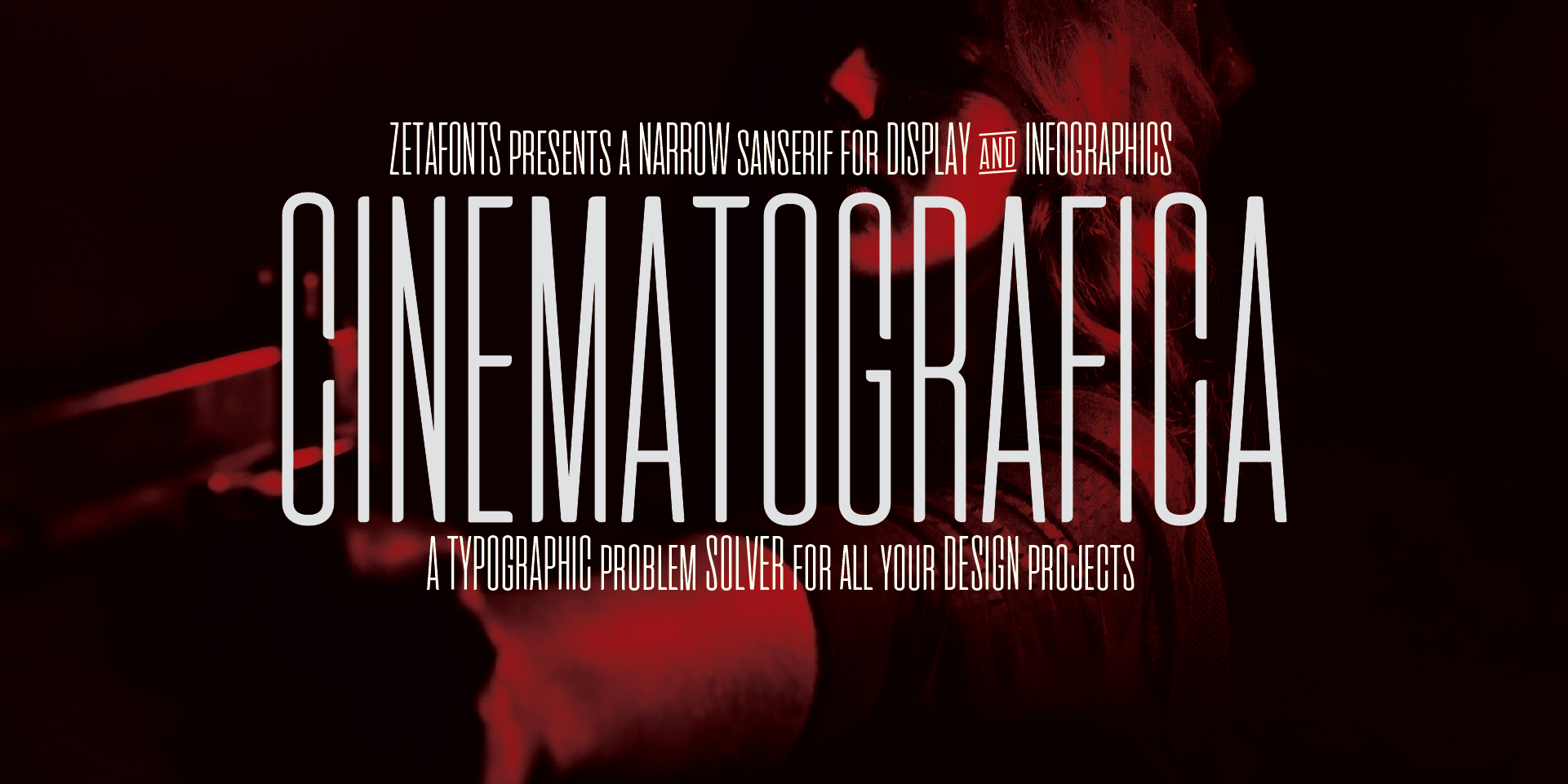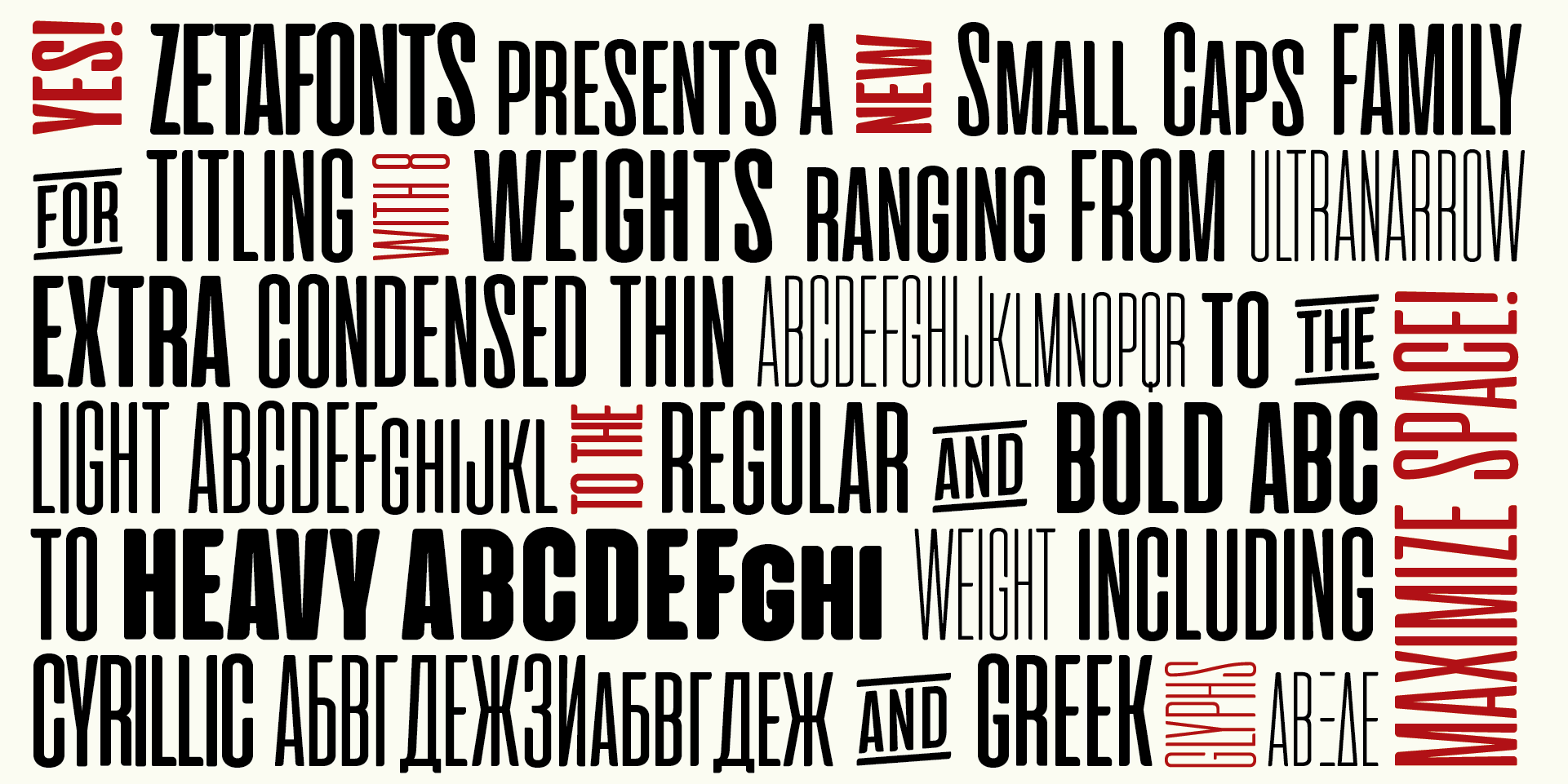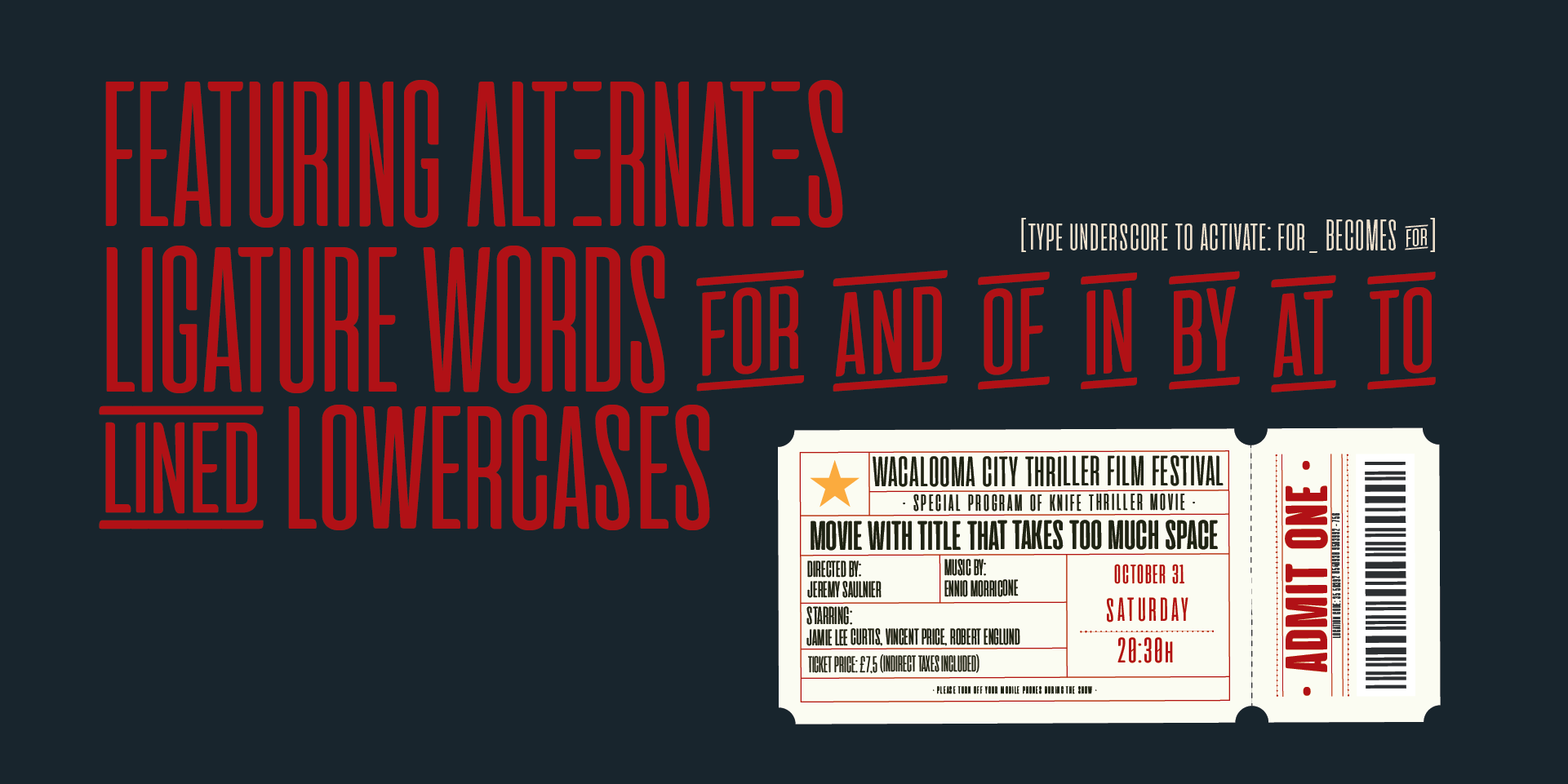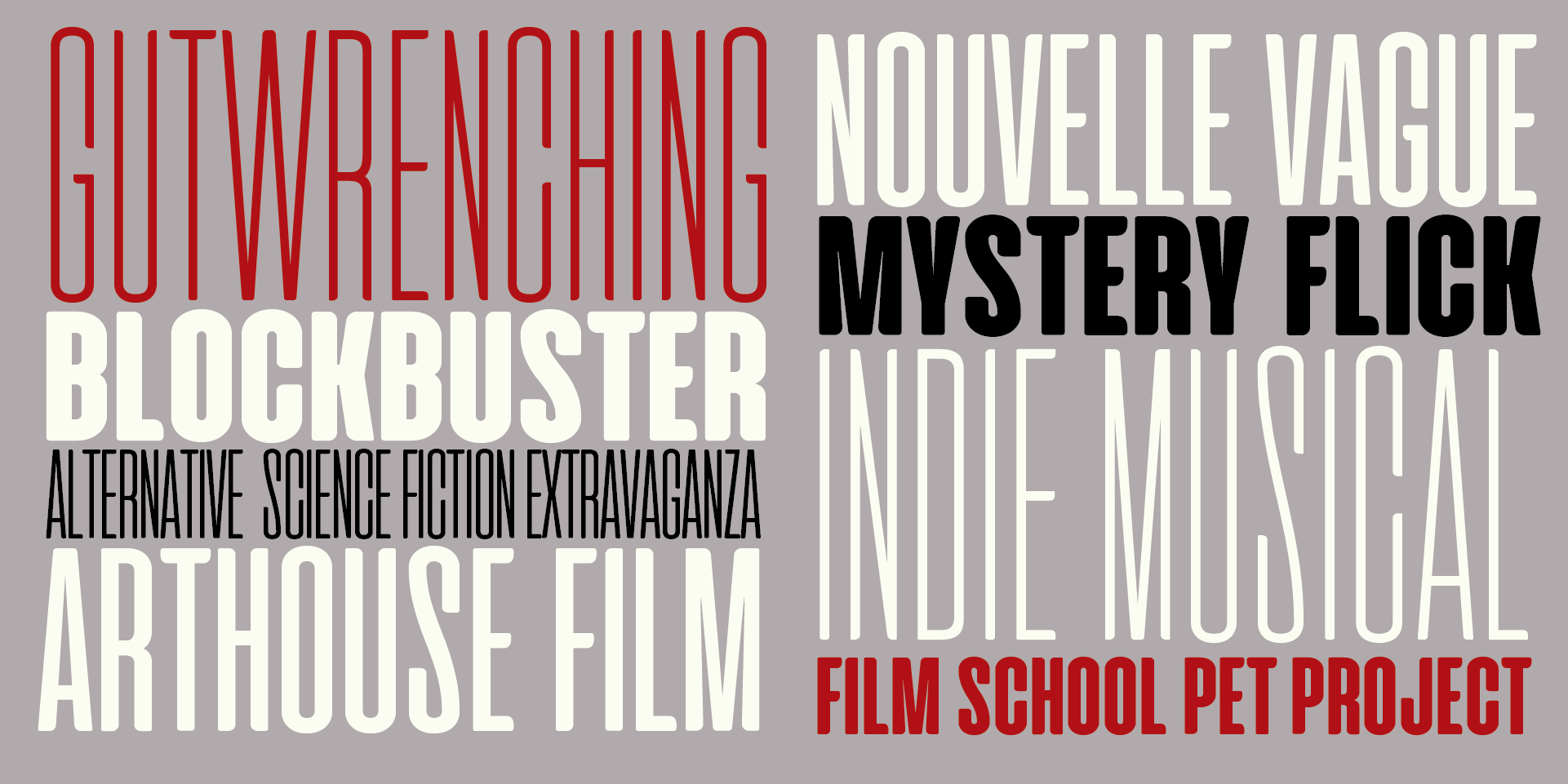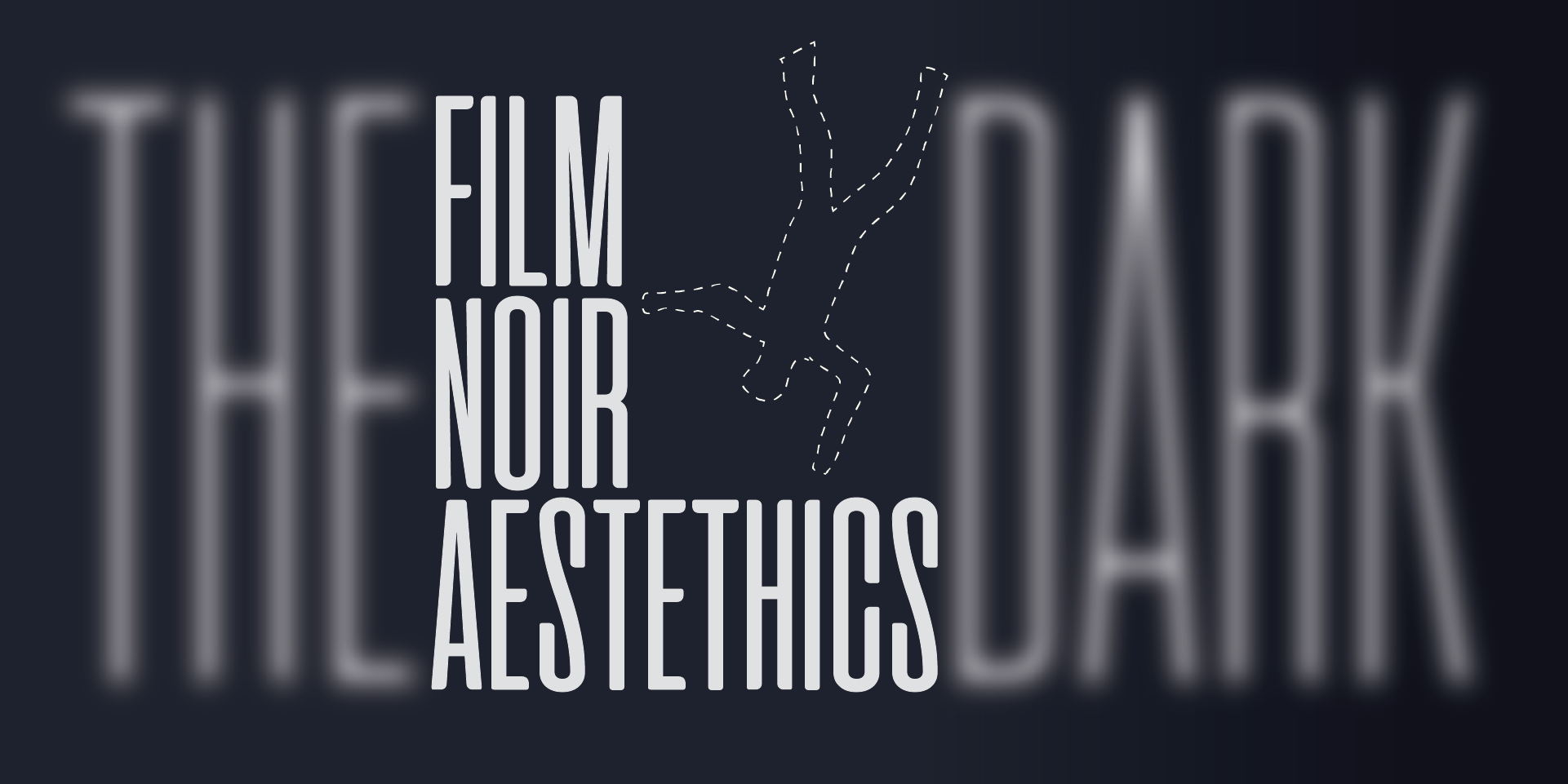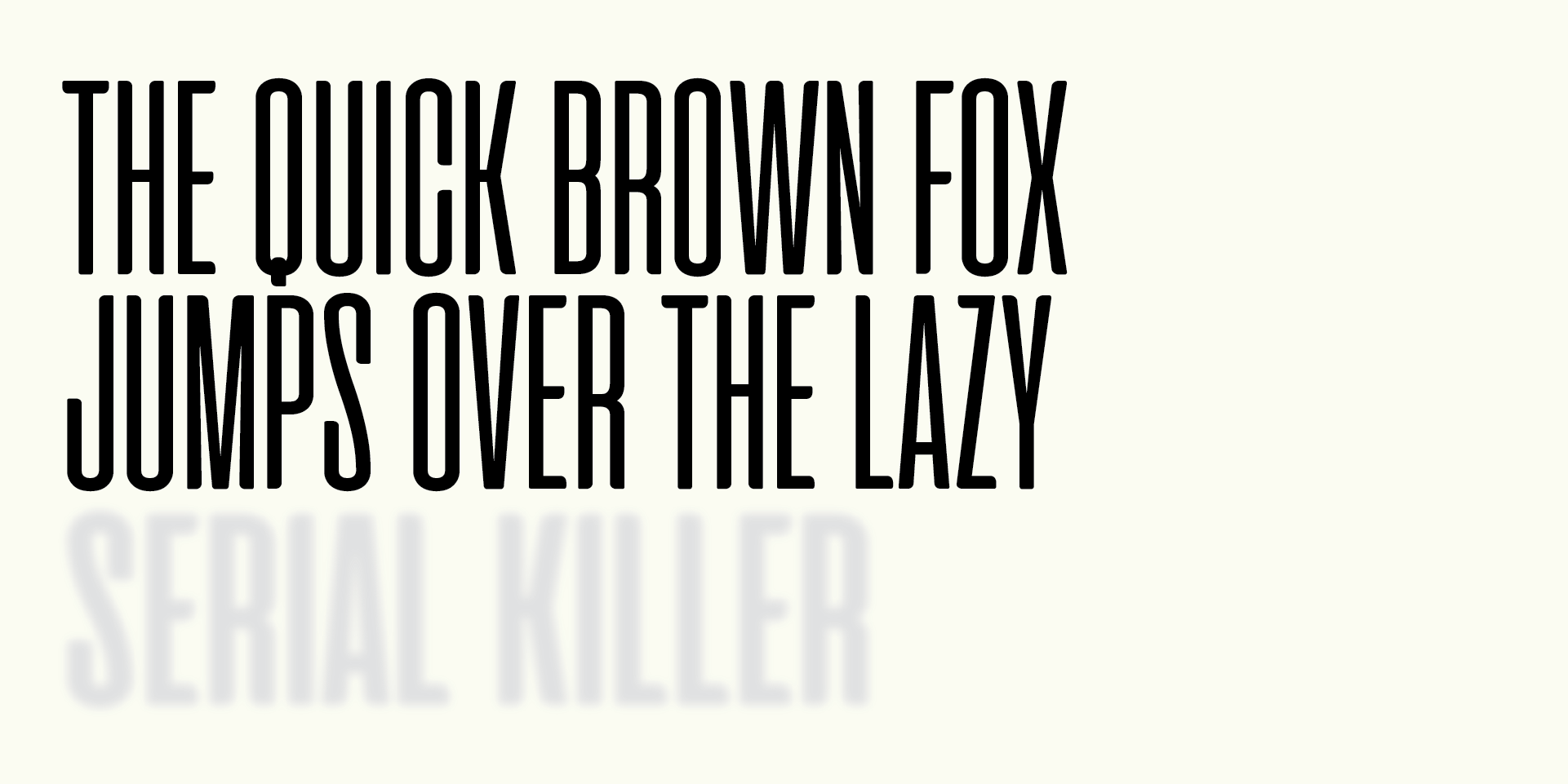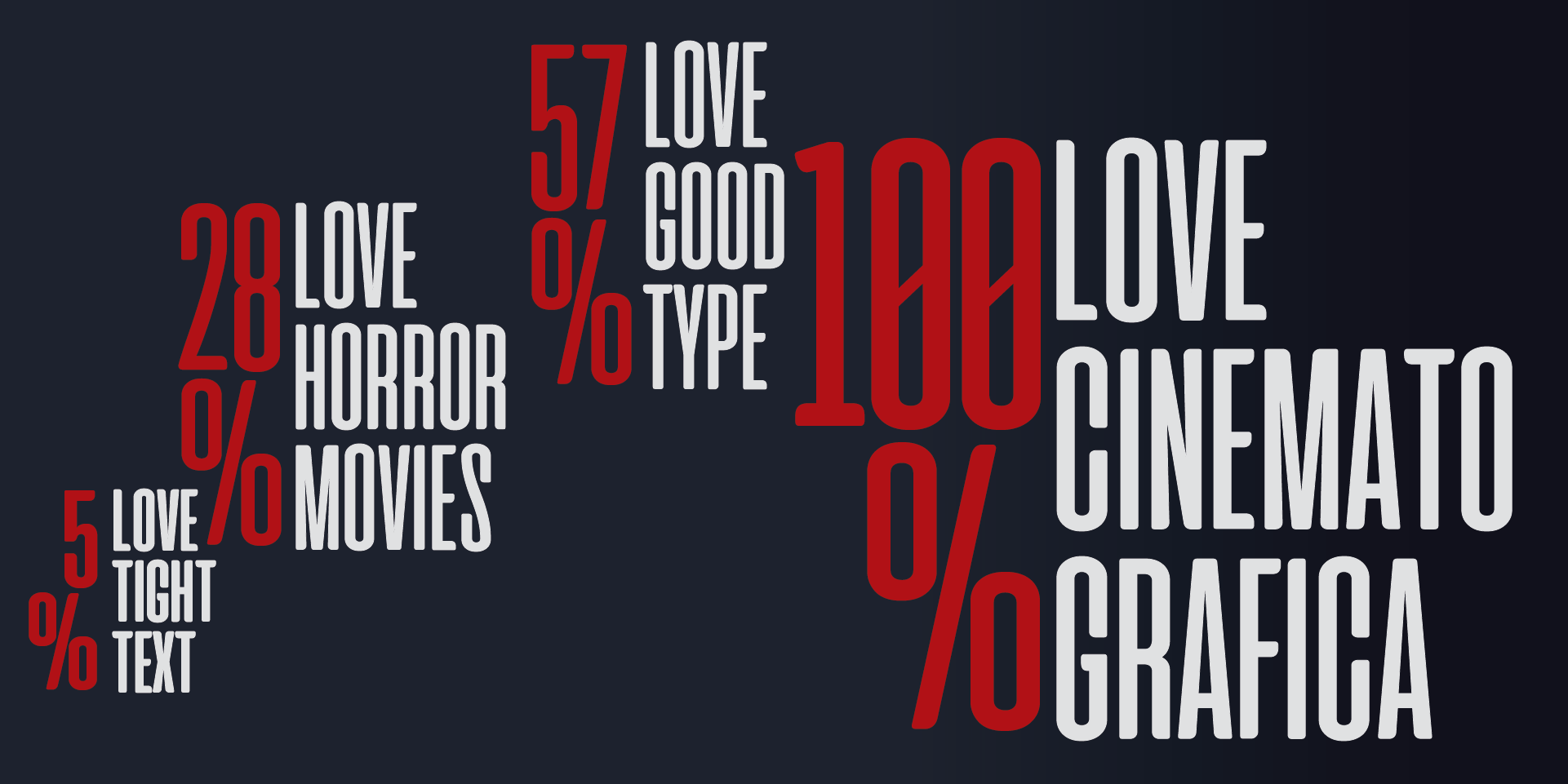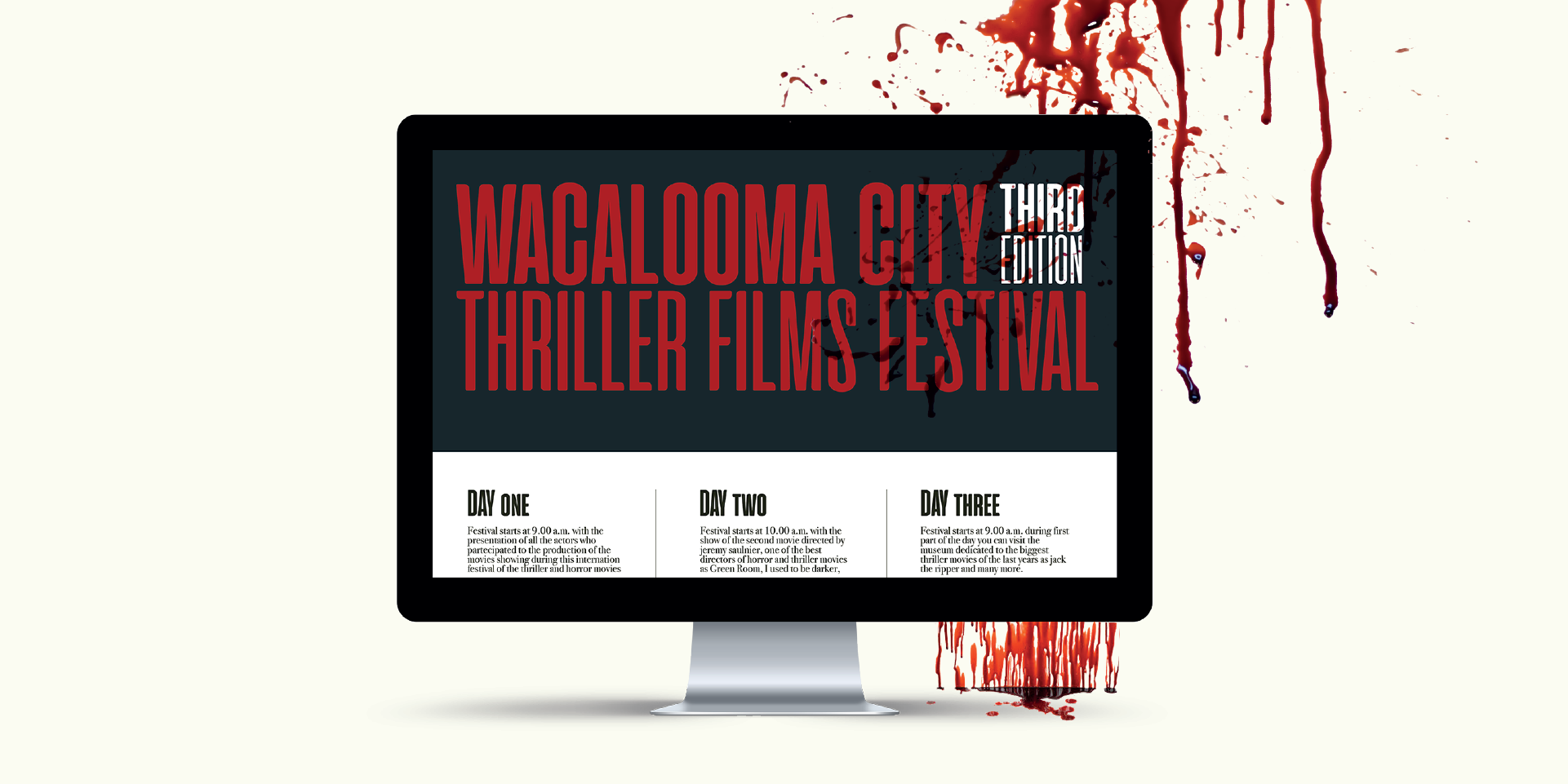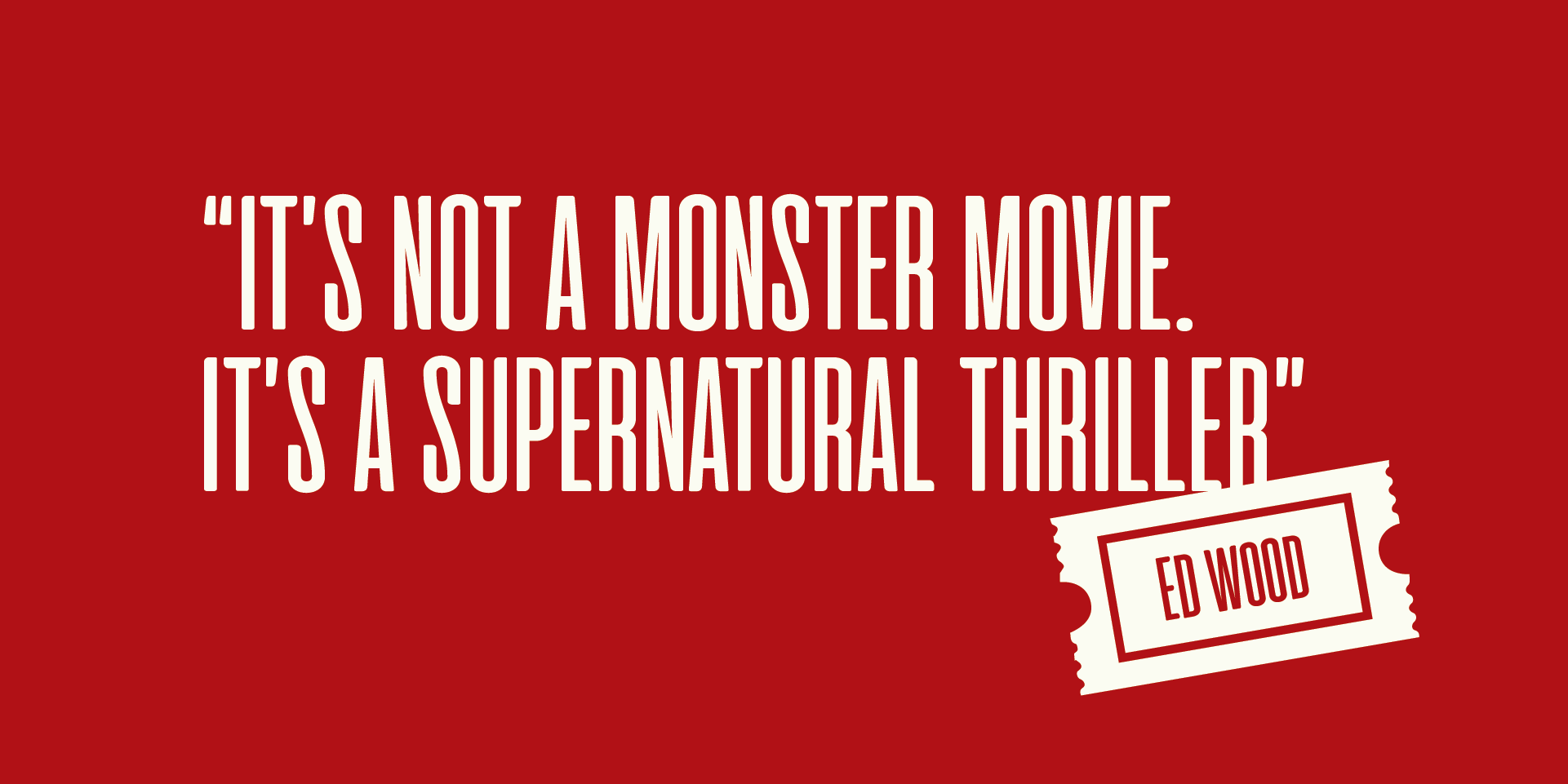
Designed by Francesco Canovaro released in 2017
Cinematografica is an Ultra Condensed Small Caps typeface created by Francesco Canovaro, developing his previous "Aliens & Cows" Typeface and used in the advertising campaign for Lucca Comics 2017 Festival. The family features seven weights from thin to heavy with open type alternate glyphs and some full word ligatures (accessible by typing an underscore after words like "and", "or", "the"). Cinematografica extra narrow width allow for extreme space-saving situations like movie posters and screen infographics.